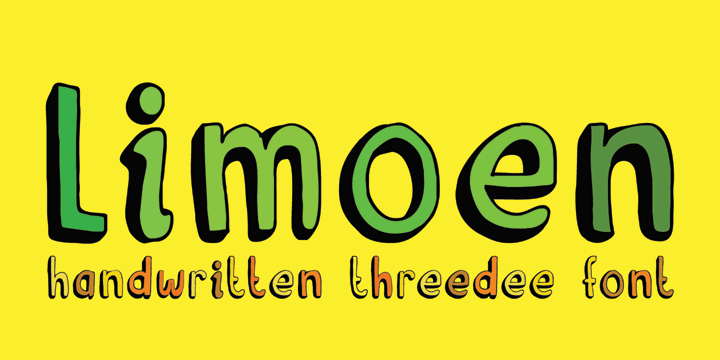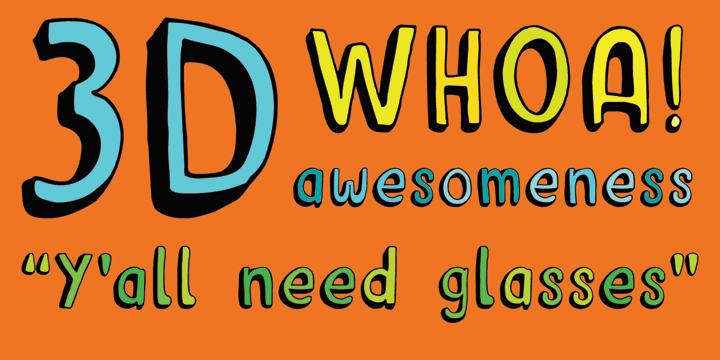
Limoen
Limoen means ?lemon? in Dutch. Why did I call this font Limoen? Well, I guess I ran out of meaningful names, so I had to work with whatever popped in my head - which happened to be Limoen. Don't ask? Limoen is a very cute, very threedee-ish typeface. It works great in poster ads and as a display font. It comes with upper and lower case letters and a whole bunch of diacritics. Enjoy!